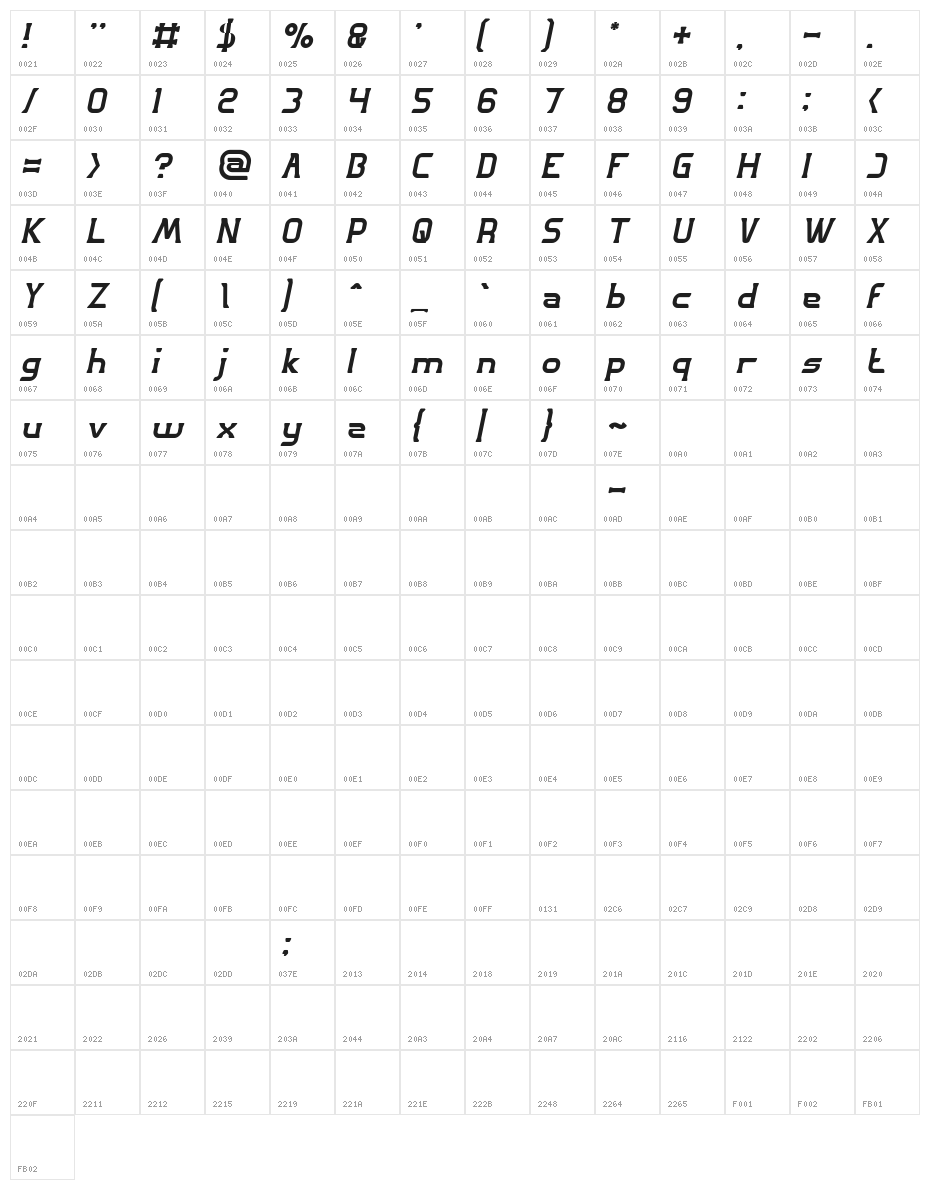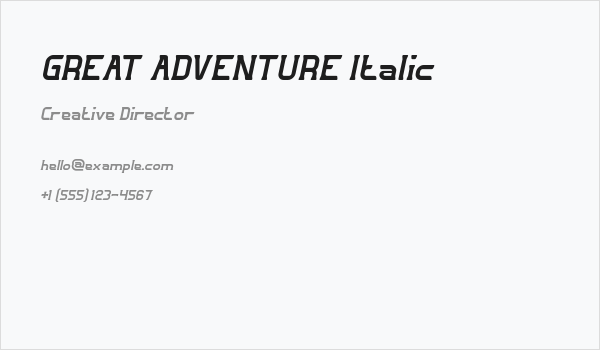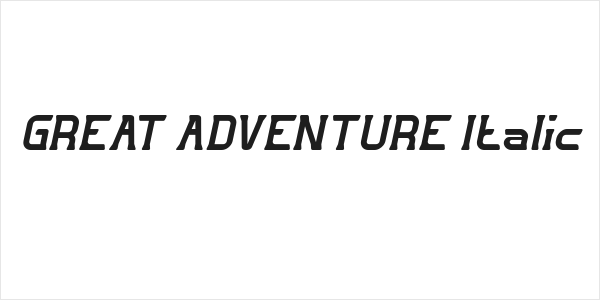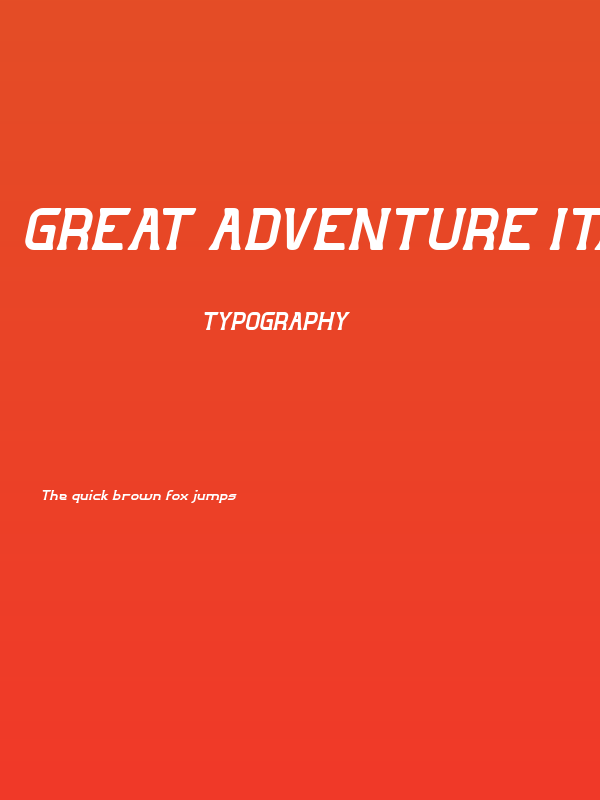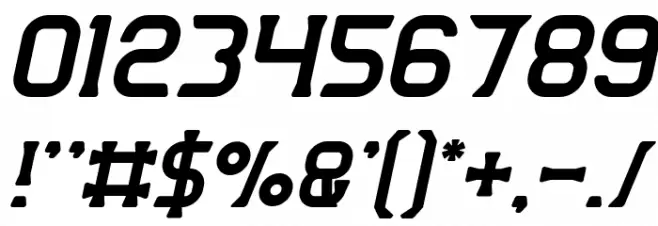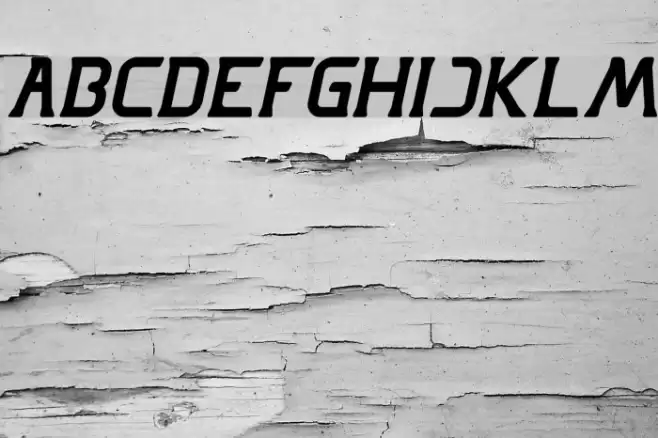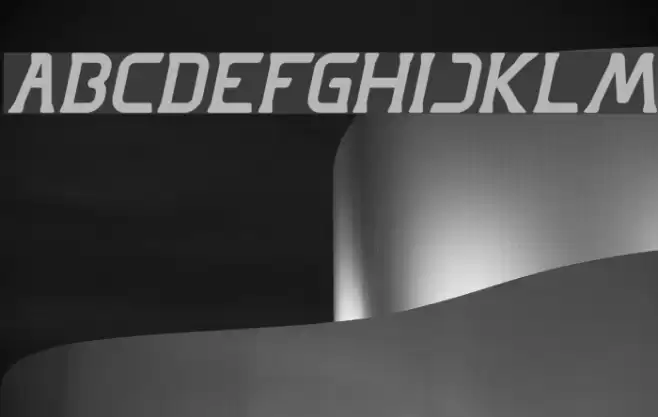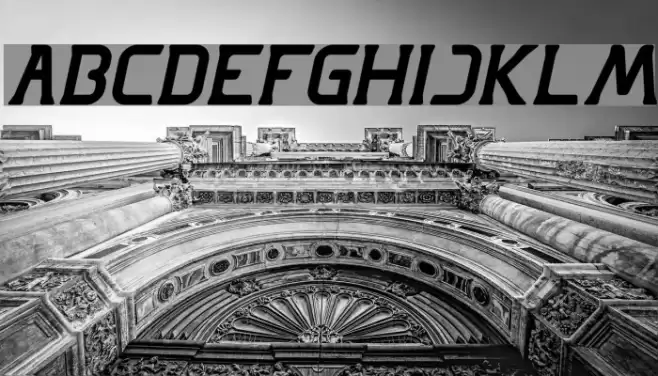
GREAT ADVENTURE Italic Font
This font features a dynamic and adventurous style with a distinct italic slant, giving it a sense of motion and energy. The characters are bold and slightly condensed, with sharp angles and clean lines that convey a modern and sporty aesthetic. The uppercase letters are robust and commanding, while the lowercase letters maintain a consistent flow, enhancing readability. The numerals are clear and well-defined, matching the overall boldness of the typeface. Special characters are designed to complement the alphanumeric set, maintaining the same energetic style.